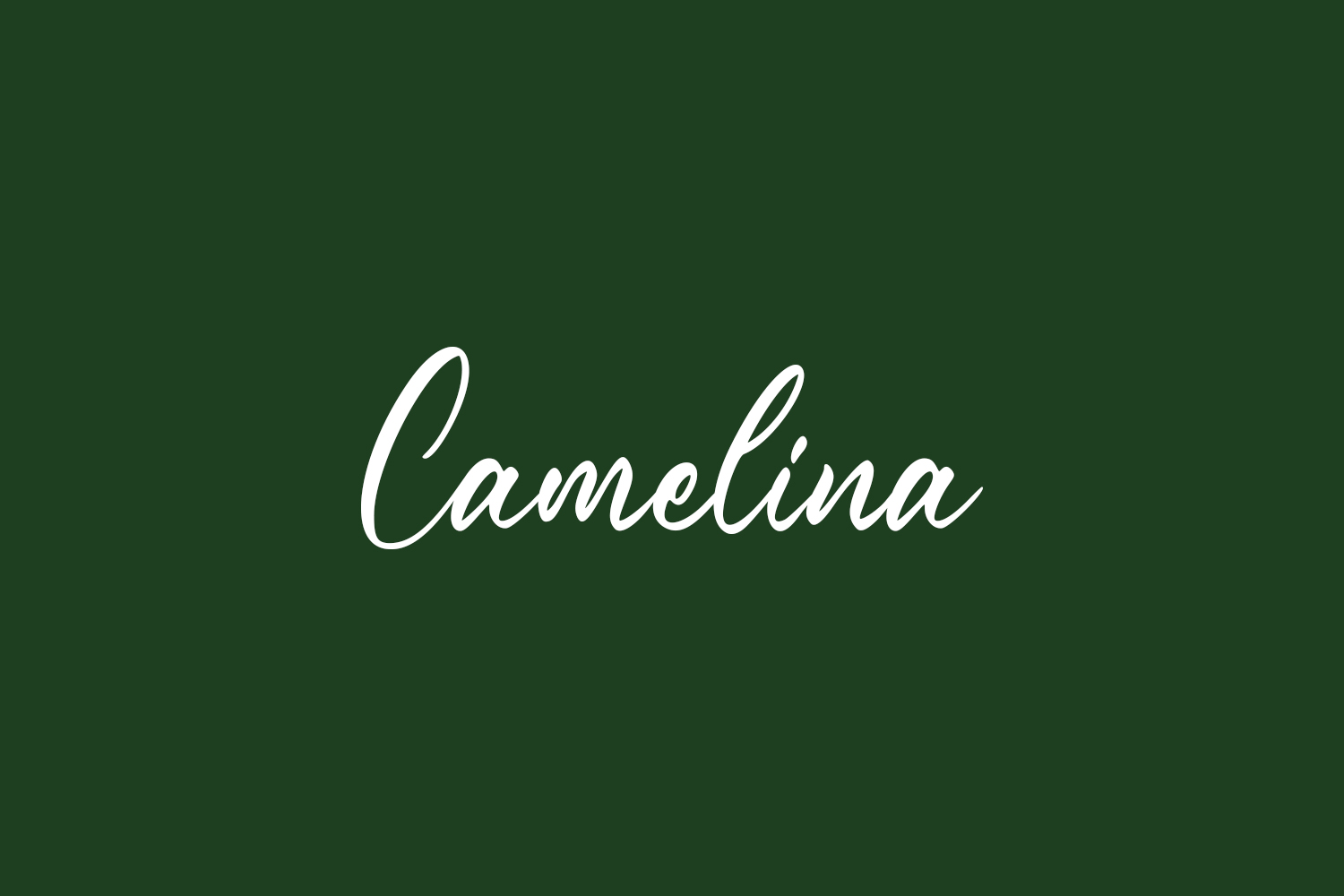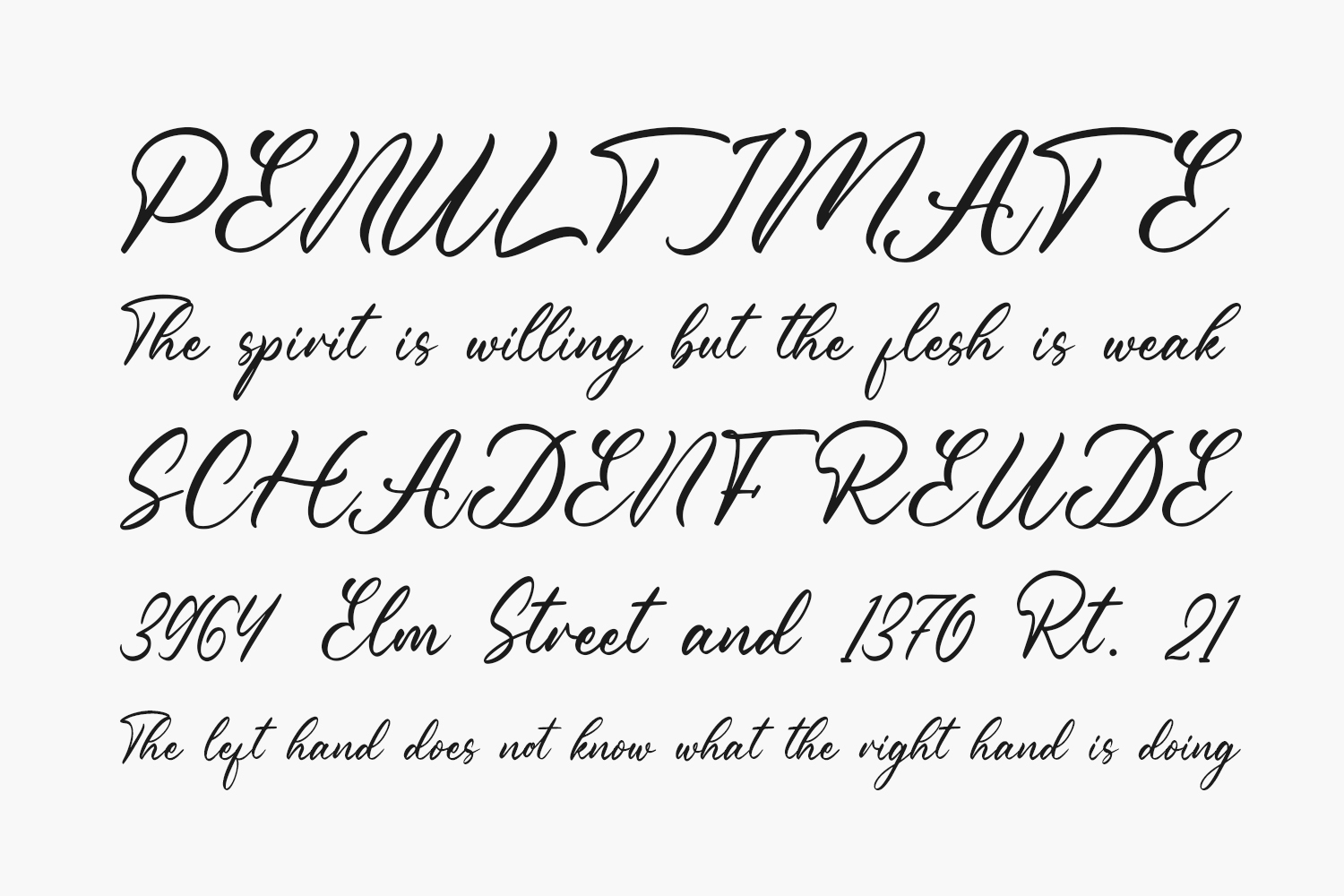
Camelina Free Font is a delicate, elegant, and flowing handwritten font. It has beautiful and well-balanced characters and as a result, it matches a wide pool of designs. Camelina Free Font was designed by NanaNissa and is free for personal use only. Please purchase the full version for commercial use.